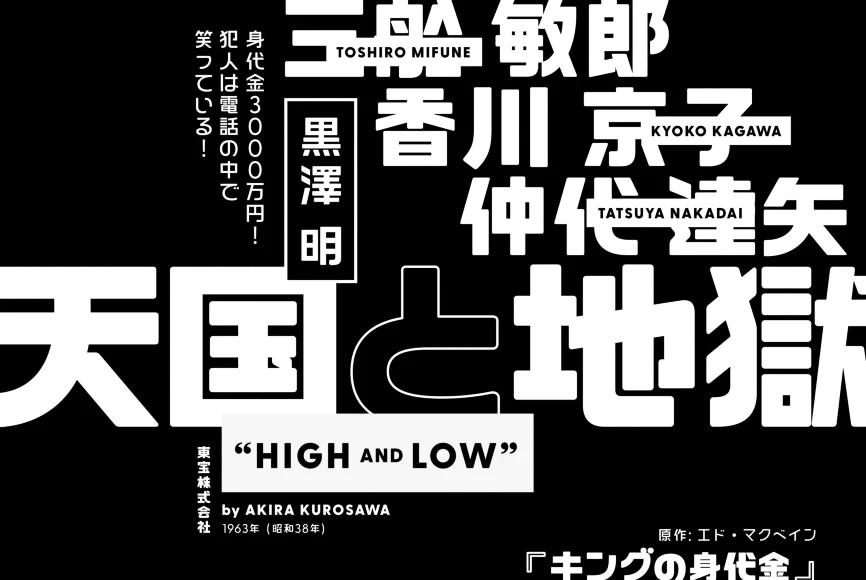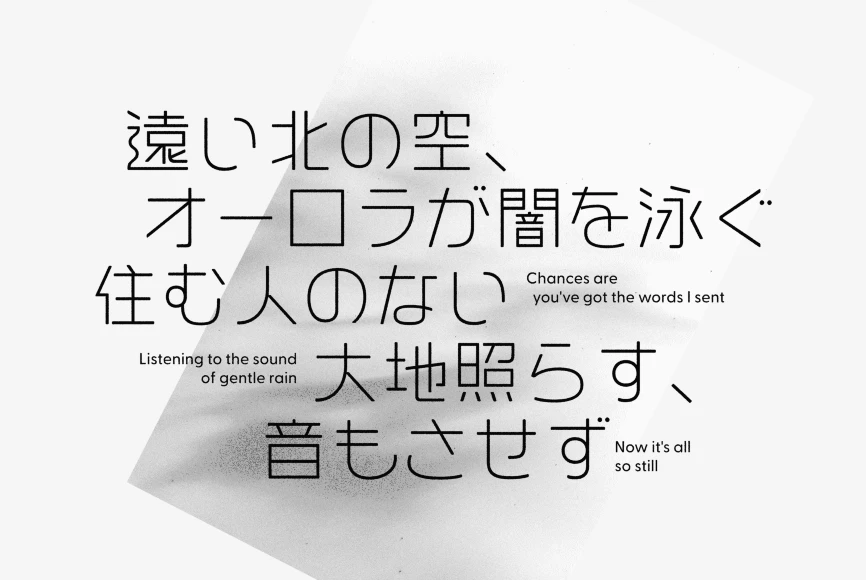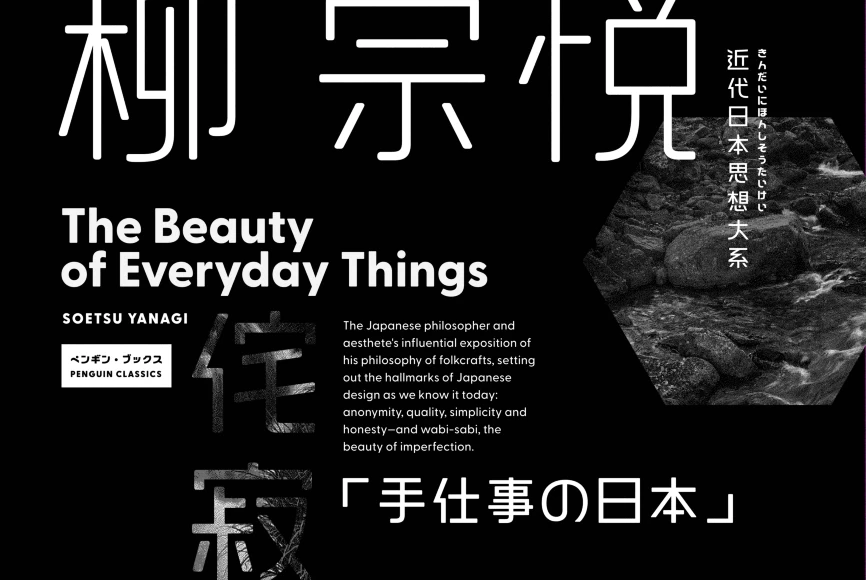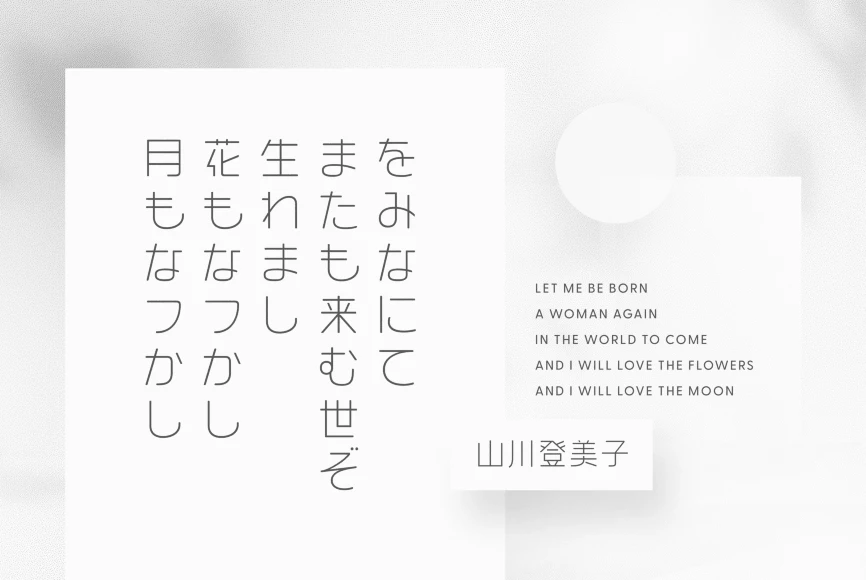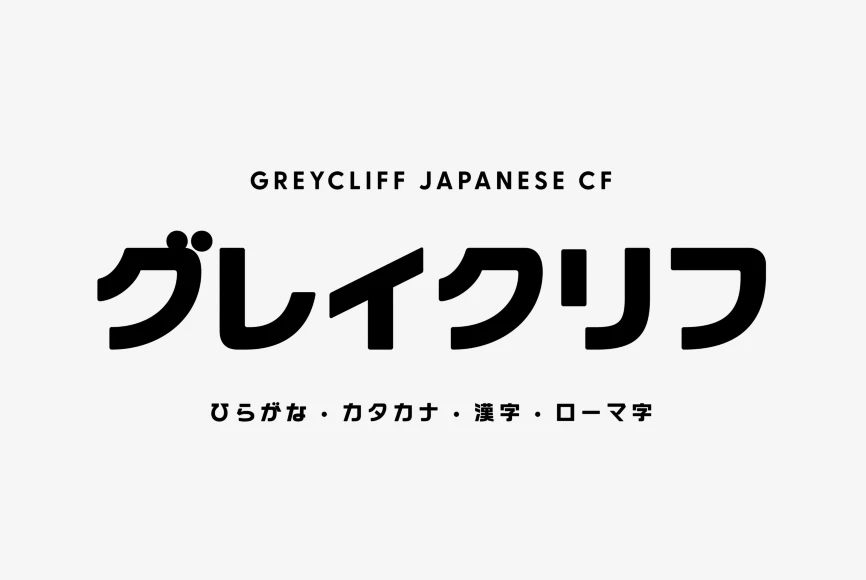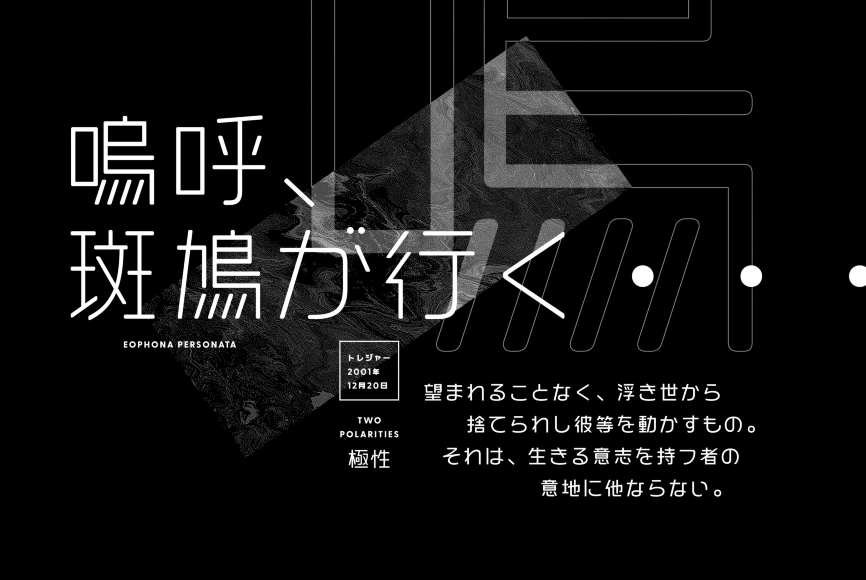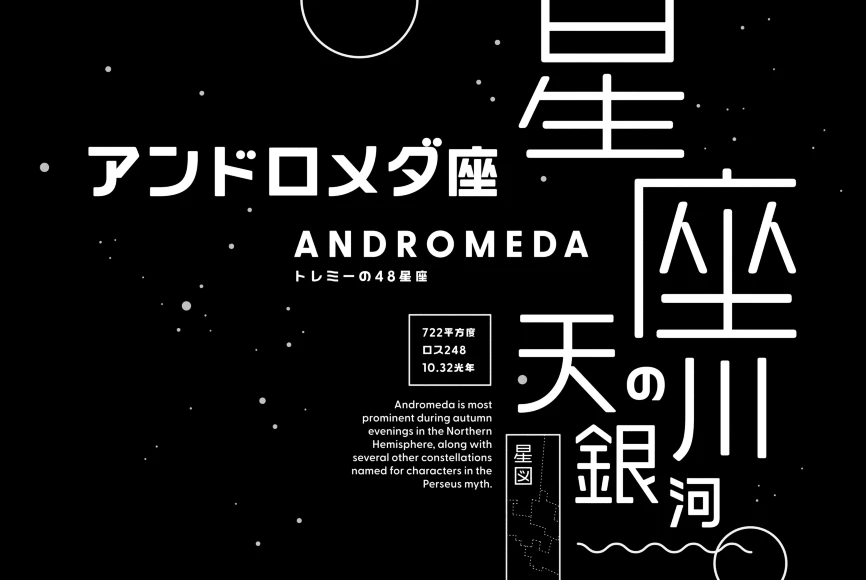
Greycliff Japanese
By Connary Fagen
Greycliff Japanese CF is a Japanese-script adaptation of the original Greycliff CF sans serif typeface. The warm, geometric design includes full suite of 9 weights for beautiful dual-language applications. All 2800+ glyphs – covering hiragana, katakana, kanji, and romaji – were hand-drawn with a careful eye for detail. Future updates will add further kanji, including rare name and geographic glyphs.